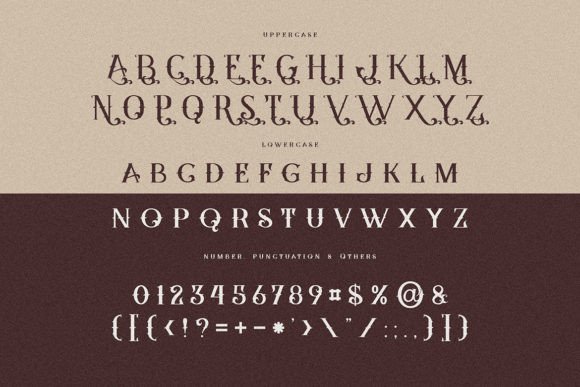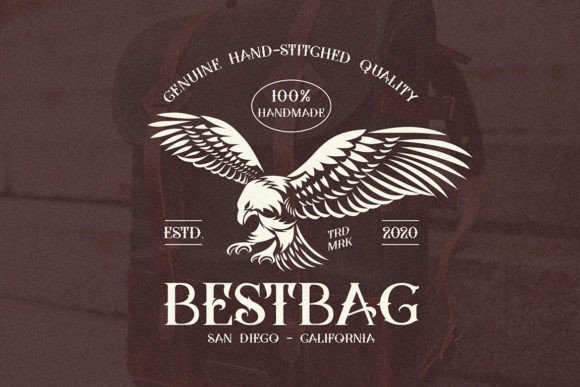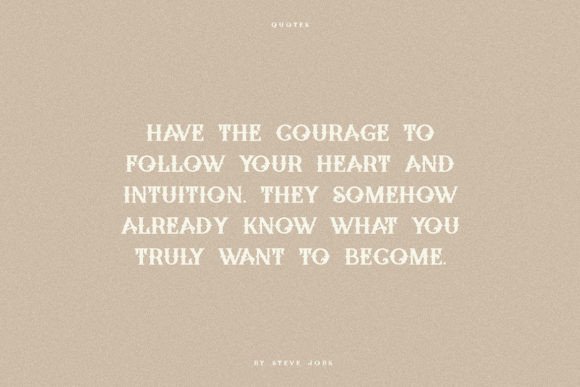
Introducing Harmony Font: Timeless Sophistication for Your Designs
In the world of typography, fonts play a crucial role in conveying the tone and personality of a design. For designers and crafters looking to add a touch of class to their projects, Harmony Font is an excellent choice. This vintage serif font exudes timeless sophistication with its elegant curves and bold lines, making it perfect for a wide range of applications.
The Characteristics of Harmony Font
Harmony Font is a stylishly crafted serif font that boasts elegant curves and bold lines. Its serifs are designed to bring a touch of classic charm to any design, evoking a sense of nostalgia and sophistication. The font’s subtle irregularities in each character add a unique, handcrafted feel that sets it apart from more uniform fonts.
What Makes Harmony Font Stand Out
So, what makes Harmony Font stand out from other serif fonts? Here are a few key features:
- Elegant Curves and Bold Lines: Harmony Font’s curves and lines are carefully crafted to create a sense of fluidity and balance. This makes it perfect for designs that require a touch of sophistication and elegance.
- Stylishly Crafted Serifs: The serifs in Harmony Font are designed to add a touch of classic charm to any design. They are carefully crafted to create a sense of continuity and flow.
- Subtle Irregularities: The subtle irregularities in each character give Harmony Font a unique, handcrafted feel. This makes it perfect for designers and crafters looking to add a personal touch to their projects.
Harmony Font is a versatile font that can be used for a wide range of applications, including:
- Branding and Logo Design: Harmony Font’s elegant curves and bold lines make it perfect for branding and logo design. It’s ideal for creating a sophisticated and timeless logo that will stand the test of time.
- Print Design: Harmony Font is perfect for print design, including business cards, brochures, and posters. Its classic charm and elegant curves make it a great choice for any print project.
- Digital Design: Harmony Font can also be used for digital design, including website headers, social media graphics, and email marketing campaigns. Its subtle irregularities and handcrafted feel make it perfect for creating a unique and engaging digital experience.
Why Choose Harmony Font?
So, why choose Harmony Font for your next project? Here are a few reasons:
- Timeless Sophistication: Harmony Font exudes timeless sophistication, making it perfect for designers and crafters looking to create a classic and elegant design.
- Unique and Handcrafted Feel: The subtle irregularities in each character give Harmony Font a unique and handcrafted feel that sets it apart from other fonts.
- Versatility: Harmony Font is a versatile font that can be used for a wide range of applications, from branding and logo design to print and digital design.
In conclusion, Harmony Font is a vintage serif font that exudes timeless sophistication with its elegant curves and bold lines. Its stylishly crafted serifs bring a touch of classic charm to any design, while the subtle irregularities in each character add a unique, handcrafted feel. Perfect for adding a touch of class to any project, Harmony Font is a great choice for designers and crafters looking to create a sophisticated and timeless design.